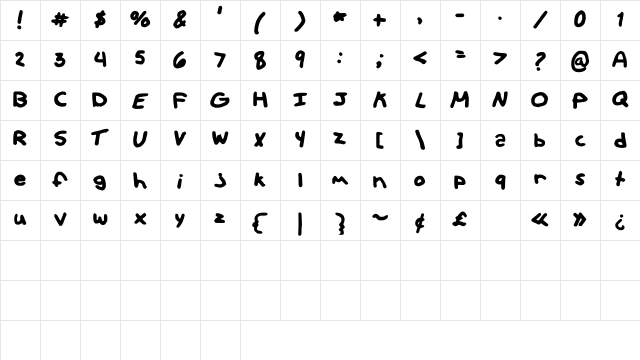
Hipster Medium Free Font
Hipster Medium
Design Context for Hipster
Hipster is a composed and adaptable typeface that performs quietly and consistently across a wide range of design contexts.
Pro Tip: Use Hipster in both headline and body roles to test its range before committing to a single application.